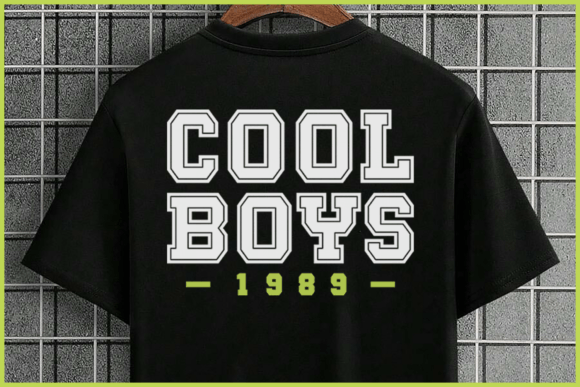
Match Jersey Font
Make a strong visual statement with modern slab serif font. Fall in love with the playful character of the versatile Match Jersey font designed for sports enthusiasts. The Match Jersey font adds an energetic, Match Jersey font creates a bold, standout appeal. The Stacked font layers on the intrigue, and the Bold font underscores the sheer power of typography. The unique Box font is ready to challenge tradition, adding a daring twist to your design arsenal. Experience the completeness of the Family font that will take your design projects to extraordinary heights. Craft your narratives with pinpoint precision using this diverse font family.